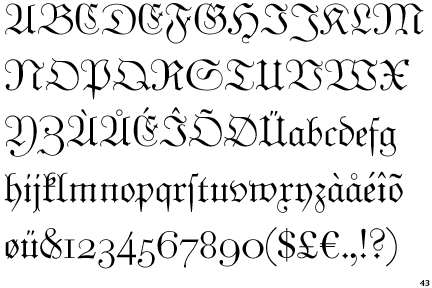
My favorite Blackletter typefaces.
These are my all time favorite Blackletter typefaces....Any others that you regard very highly out there?
Wilhelm Klingspor Gotisch, and of course the inimitable Linotype Sangue.
Ouch, I start to bleed just looking at Linotype Sangue LOL
As the feature is common to the examples on your list, all being in the Old English vein, it finally occurs to me to wonder about the dealie in the capitals consisting of an extraneous vertical hairline connected to the letter proper by two little hairlines bowed toward each other. It is purely decorative and weirdly structural at the same time. How did it come about? Does it have a name? I never questioned it before, but now, upon examination, I can't see the sense of it. If anyone has any clues to the history of this curious artifact, I would like to hear them.
Cerulean, I may be incorrect, but I understand it is to be a parallel to the ribbing of Cathedral Church stained glass windows....
@cerulean I presumed it was to give balance to the overall tone of the letter. The big open forms have a lot of negative space without those lovely little hairlines.
But I will also add Clairvaux, which I've sometimes seen called a "whiteletter."
It's funny how blackletter types are called "Old English." Old English — as in the language, Anglo-Saxon — was not written in anything like a textura style, but in something closer to a half-uncial style. English was not written or printed in blackletter until the Middle English period (c.f. Caxton's Chaucer).